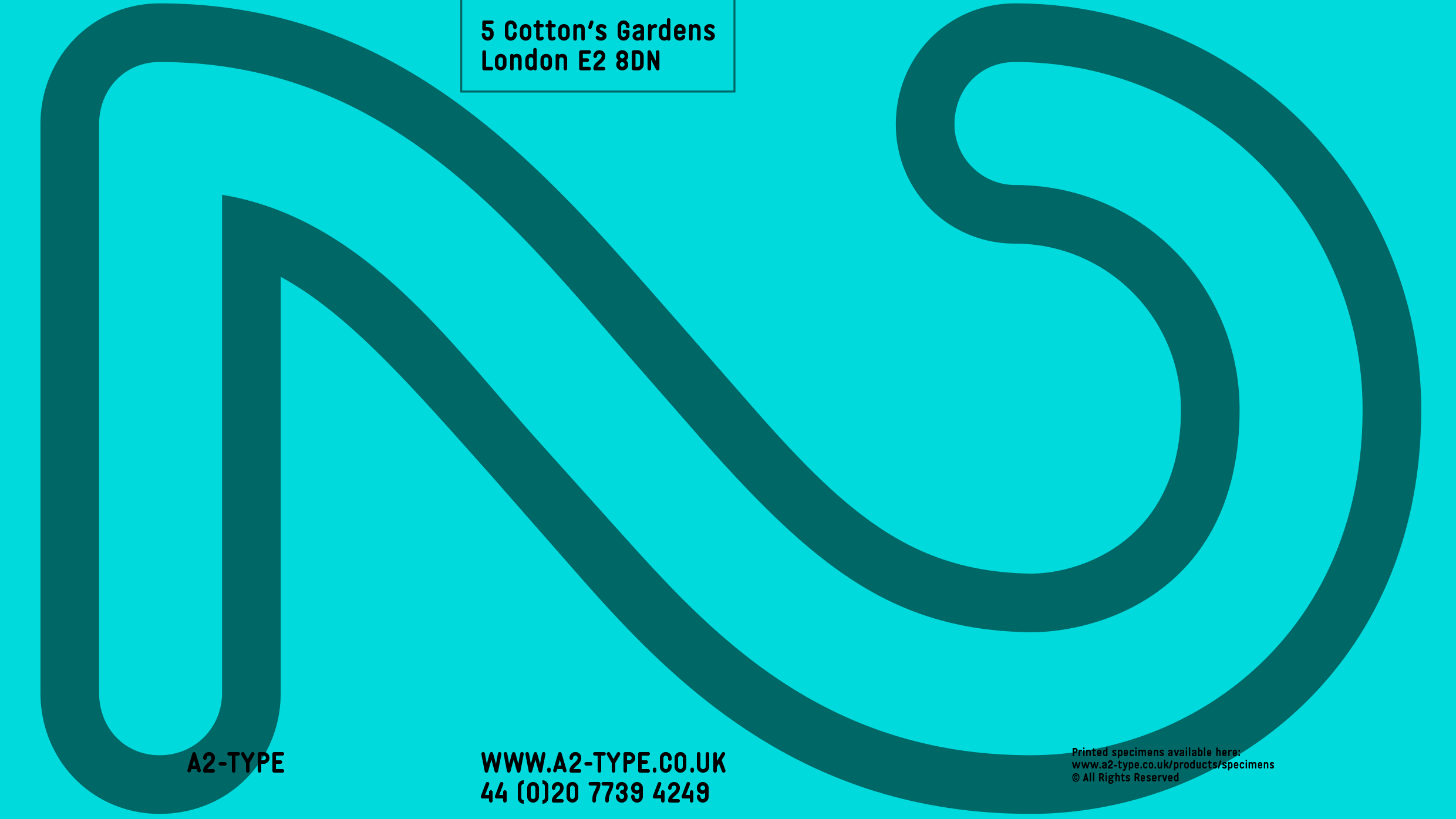
A23D Outline Regular
A23D SOLID is the starting point and hidden core for the design of our A23D letterpress wireframe alphabet, commissioned by New North Press in London. This solid, mono-linear, rounded style font was designed as a ‘skeleton’ in order to then extrude the core form into a wireframe mesh – which was later 3D printed and supplied to the client as a fully working letterpress font set. A23D Outline (2018) is a perfectly crafted ‘exoskeleton’ iteration of the Solid style.